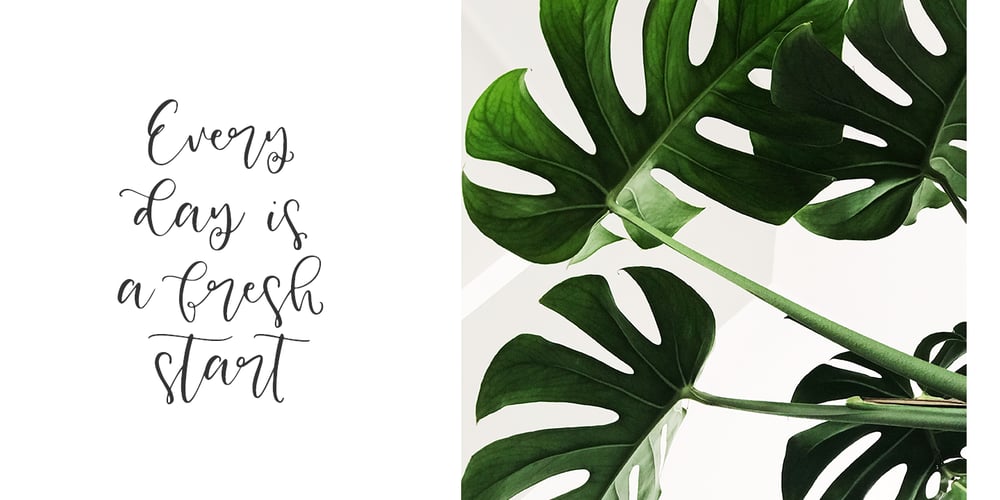
Honey and Ginger Font Family was designed by Dmitrii Chirkov and published by Supfonts. Honey and Ginger contains 1 styles and family package options. Honey and Ginger is a classic modern calligraphic font: floating baseline, ligatures, swashes and multilingual support. Honey and Ginger will look beautiful on holiday invitations, wedding invites and stationery, logos, and more. Check the posters to see how it could look for your next project! Includes: Uppercase and lowercase Numbers and punctuation Foreign language support Swashes and Alternates Check out my blog: www.instagram.com/dmitriychirkov pinterest.com/dmitriychirkov7 Enjoy!